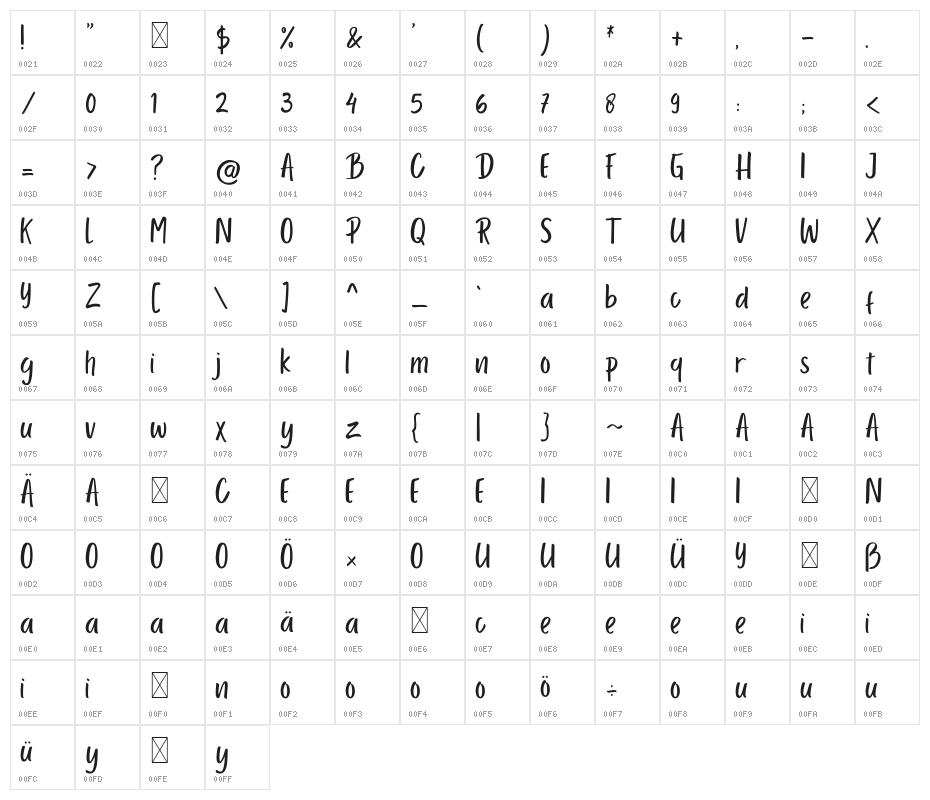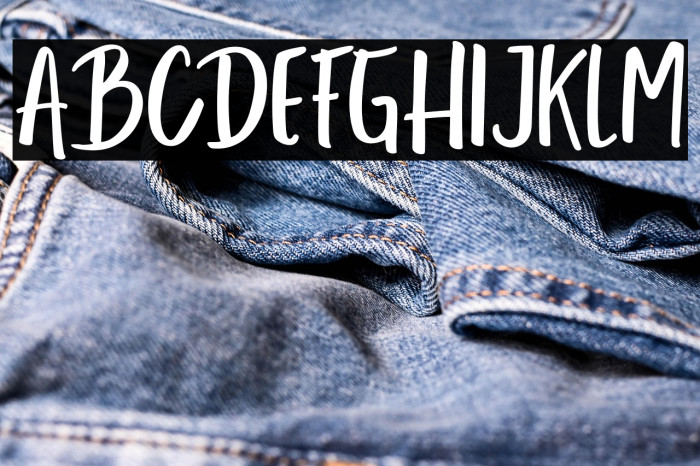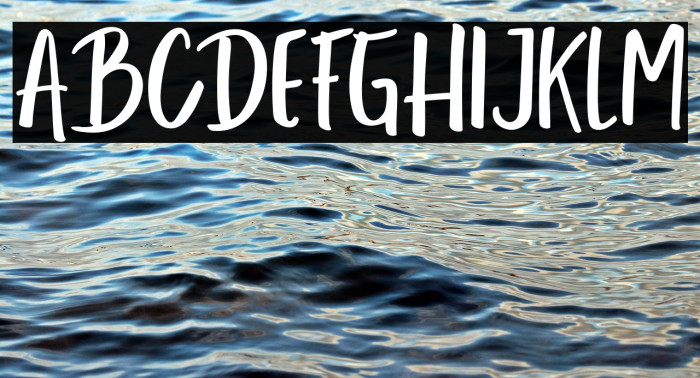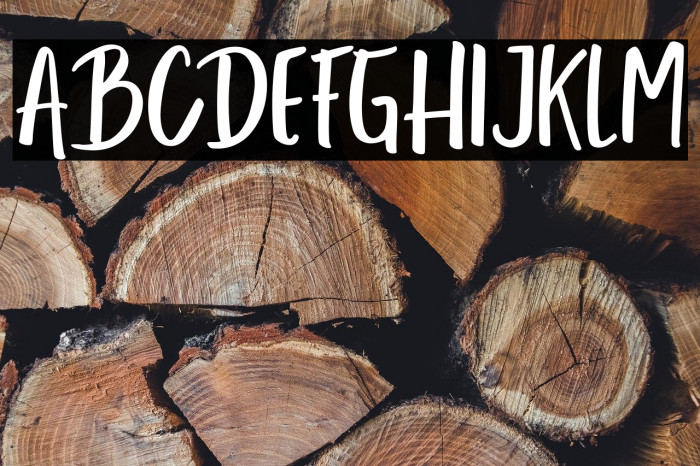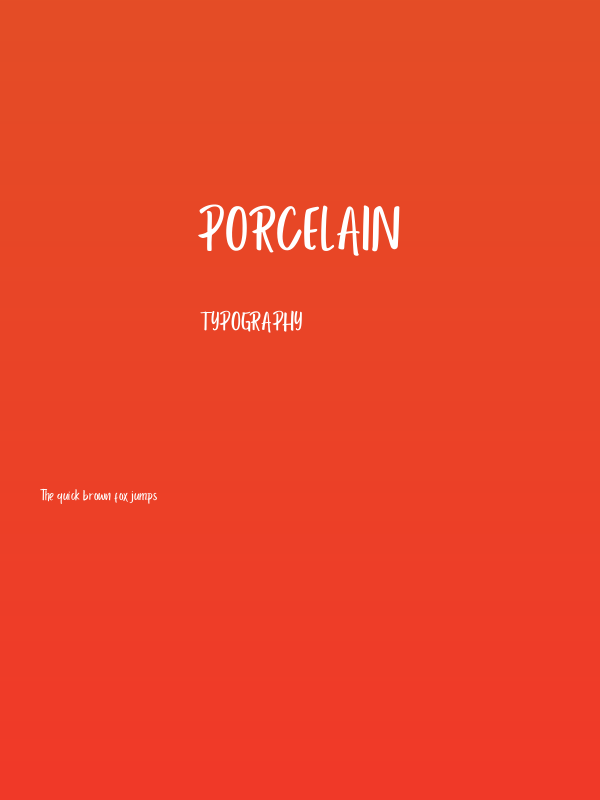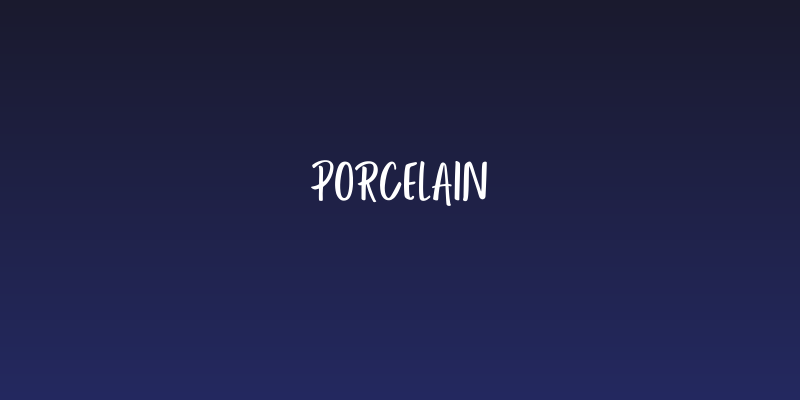
Porcelain Font
Porcelain Description
This font features a playful and casual handwritten style, characterized by its smooth, flowing curves and slightly irregular letterforms. The uppercase letters are bold and prominent, while the lowercase letters maintain a consistent, friendly appearance. The numerals are clear and easy to read, matching the overall informal aesthetic. Special characters are well-integrated, maintaining the font's cohesive look. This font exudes a sense of warmth and approachability, making it ideal for projects that require a personal touch.
| Proposed Projects | Ideal for greeting cards, invitations, personal branding, and social media graphics. |